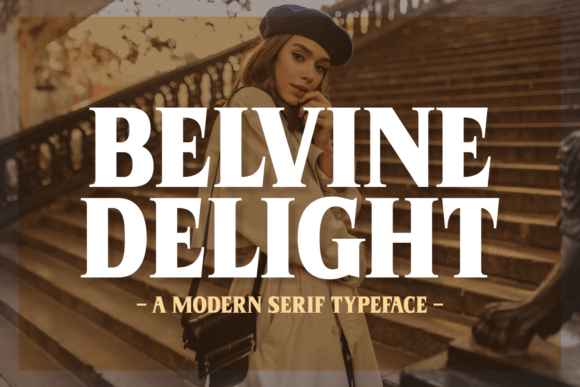
Introducing Belvine Delight Font: Elevate Your Designs with Elegance
In the world of typography, a font can make or break a design. The right typeface can elevate your project, making it stand out and leave a lasting impression on your audience. This is where Belvine Delight comes in – a minimalist, elegant, and clean serif typeface designed specifically for display purposes. In this article, we’ll explore the features and benefits of Belvine Delight, and how it can breathe life into your creations.
The Essence of Belvine Delight
Belvine Delight is more than just a font; it’s a design statement. Its minimalist approach, combined with elegant lines and clean serifs, makes it perfect for projects that demand sophistication and refinement. This typeface is versatile, adapting seamlessly to various contexts, from luxury product labels to digital media.
Key Features of Belvine Delight
- Minimalist Design: Belvine Delight boasts a simple yet impactful design. Its clean lines and subtle serifs make it an excellent choice for designs that require a touch of elegance without overwhelming the senses.
- Elegant and Clean: The font’s elegance lies in its precision. Each letterform is crafted to contribute to a cohesive and sophisticated look, making it ideal for high-end branding and marketing materials.
- Serif Typeface: As a serif typeface, Belvine Delight offers a classic appeal that can add depth and character to your designs. The serifs provide a sense of tradition and reliability, while the minimalist approach keeps the font feeling modern.
- Versatility: One of the standout features of Belvine Delight is its versatility. It can be used across a range of mediums, from print to digital, making it a valuable addition to any designer’s toolkit.
Applications of Belvine Delight
The adaptability of Belvine Delight is one of its most compelling advantages. Here are some of the many ways you can use this versatile typeface:
Perfume and Cosmetics Label Design
When it comes to luxury products like perfumes and cosmetics, presentation is everything. Belvine Delight, with its elegant and refined appearance, is perfectly suited for label design. It can help convey a sense of luxury and sophistication, making your product stand out on crowded store shelves.
Example of Belvine Delight used in perfume label design
Magazine Covers and Posters
For editorial projects like magazine covers and posters, Belvine Delight can add a touch of class and sophistication. Its clean lines and elegant serifs make it easy to read, even at larger sizes, ensuring your headline or title grabs attention without overwhelming the viewer.
Example of Belvine Delight used in magazine cover design
Manifests, Flyers, and Social Posts
Belvine Delight isn’t just limited to print. Its clean and minimalist design makes it suitable for digital applications as well. Use it in manifests, flyers, and social media posts to add a level of professionalism and style to your content.
Example of Belvine Delight used in social post design
Fashion and Editorial Design
In the fashion world, style and elegance are paramount. Belvine Delight, with its sophisticated and refined appearance, is a natural fit for fashion editorials, brand identities, and marketing materials. It can help elevate your fashion designs, giving them a polished and high-end look.
Example of Belvine Delight used in fashion editorial design
Why Choose Belvine Delight?
With so many typefaces available, why should you choose Belvine Delight for your projects? Here are a few compelling reasons:
- Unique yet Versatile: Belvine Delight offers a unique blend of elegance and versatility. Its distinctive style can help your project stand out, while its adaptability ensures it can be used across various mediums and applications.
- Easy to Read: Despite its elegant design, Belvine Delight remains highly legible, even at smaller sizes. This makes it practical for use in a wide range of projects, from body text to headlines.
- Time-Saving: With Belvine Delight, you can achieve professional-looking results quickly and efficiently. Its well-crafted letterforms and balanced design mean you can focus on creativity rather than fine-tuning typography.
Belvine Delight is more than just a font – it’s a design tool that can elevate your projects and make them come alive. Its minimalist, elegant, and clean design makes it perfect for a wide range of applications, from luxury branding to digital content. By incorporating Belvine Delight into your designs, you can add a touch of sophistication and style that sets your work apart.